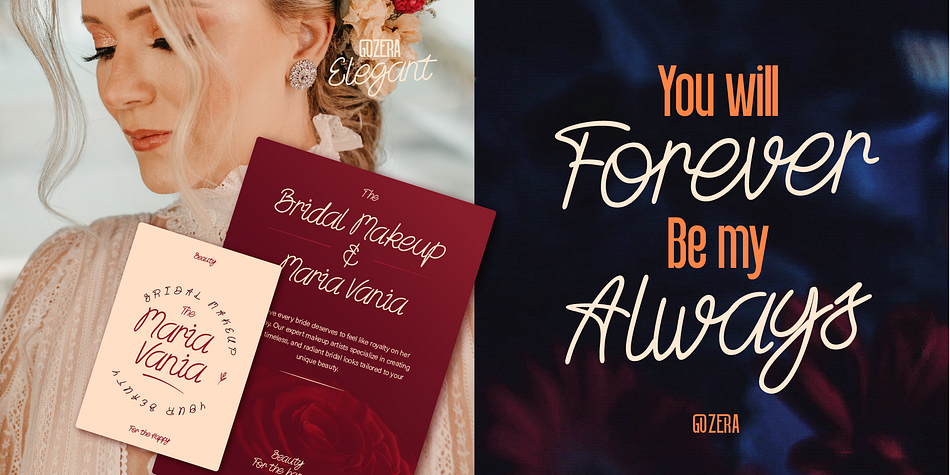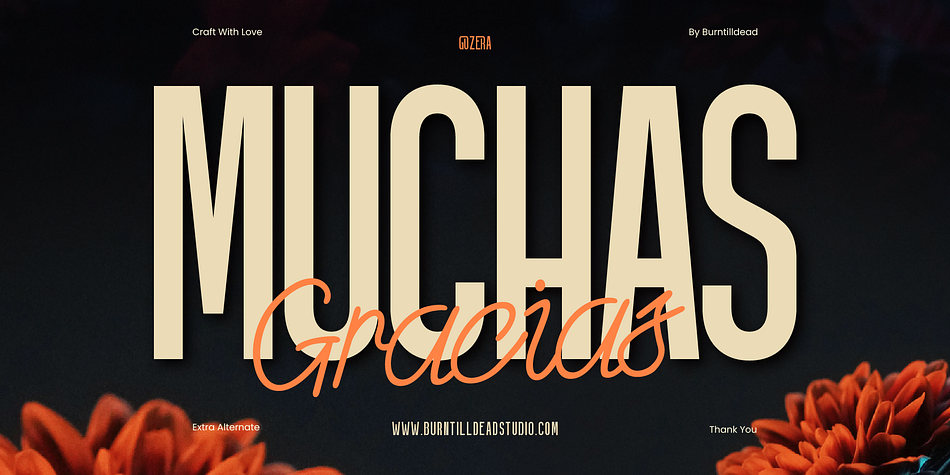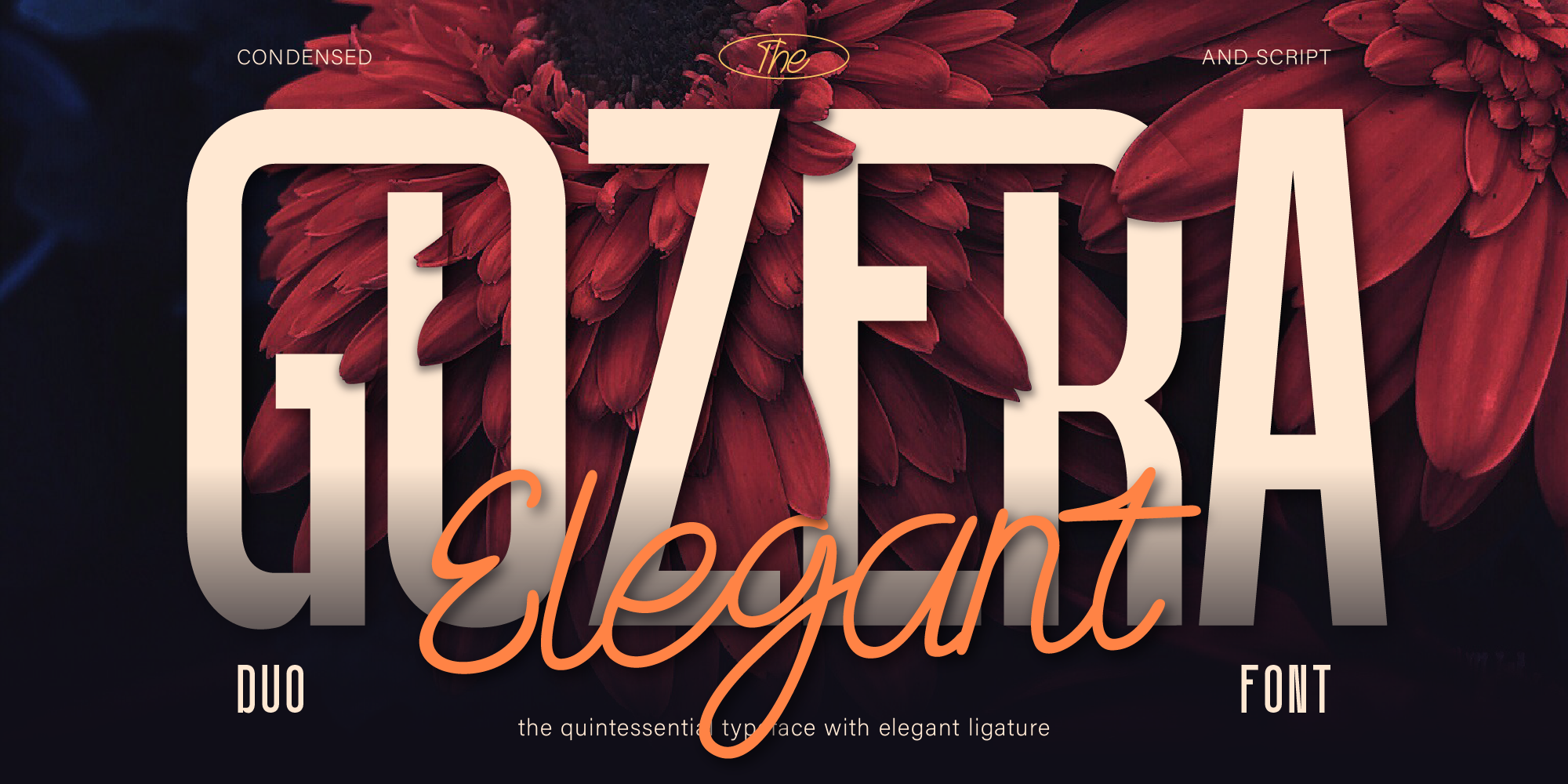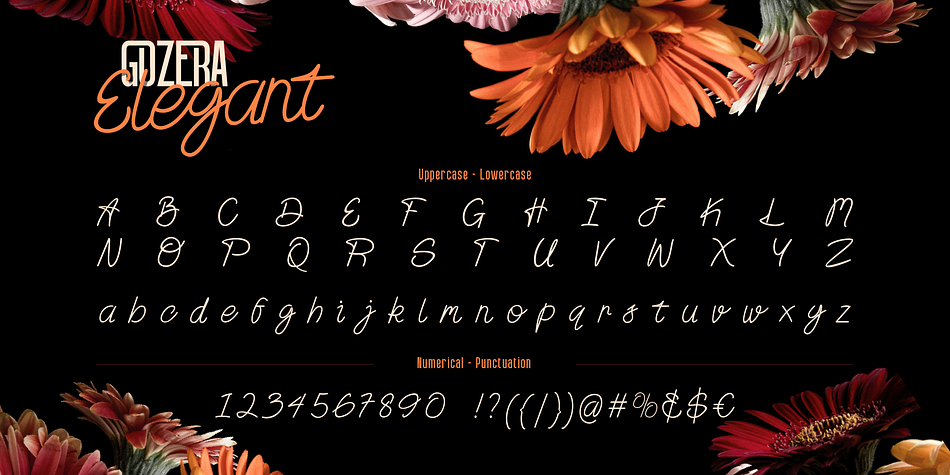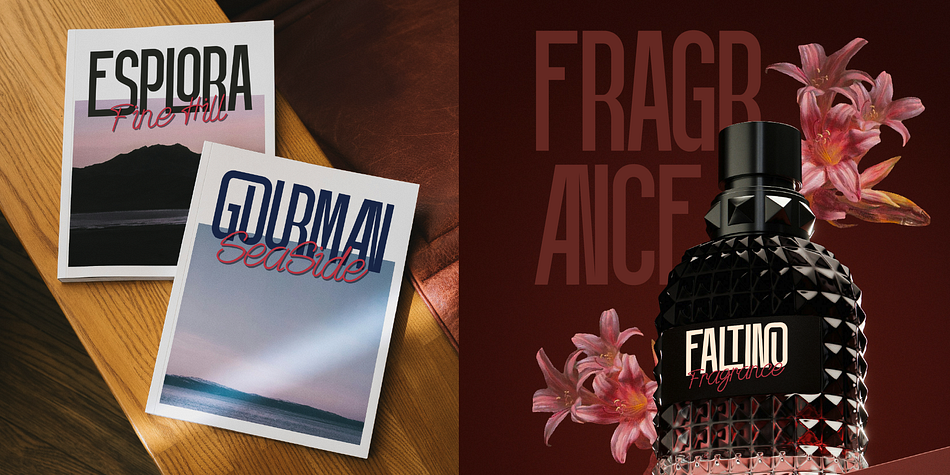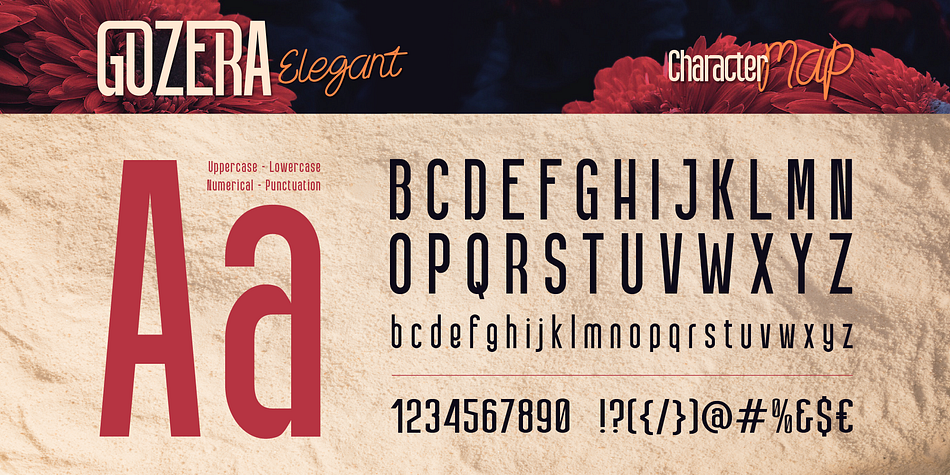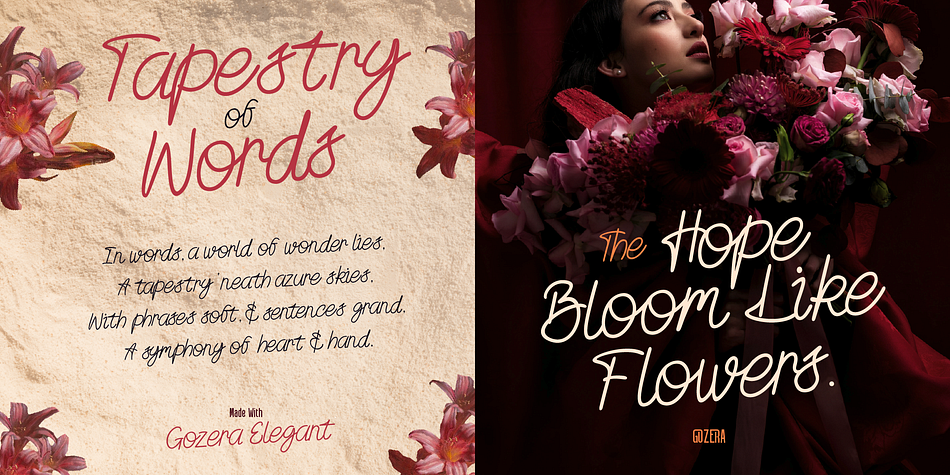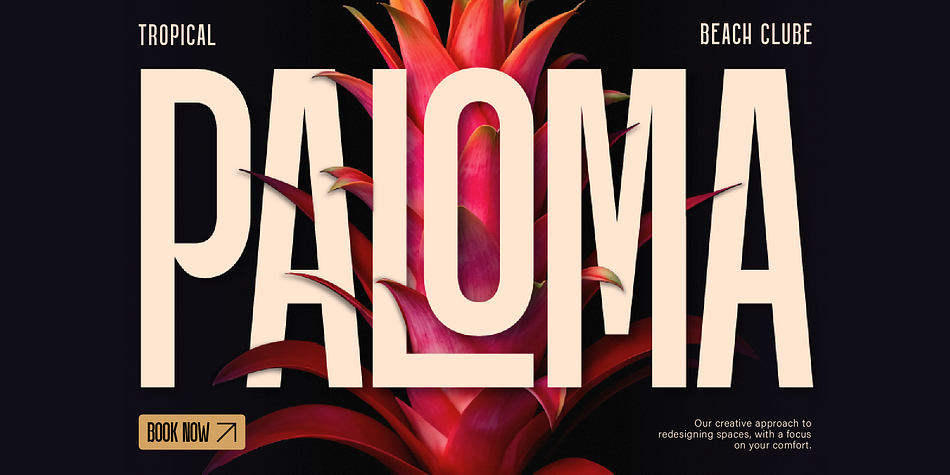
Gozera
Designed by Eric Kurniawan, Gozera is a sans serif font family. This typeface has two styles and was published by Burntilldead.
Introducing Gozera, a stunning font duo that combines two contrasting yet perfectly balanced styles: a modern condensed sans serif and an elegant handwritten script. This unique pairing gives you the freedom to create bold, dynamic designs with a sophisticated touch.
The sans serif is sleek, tall, and confident—ideal for headlines, logos, or any design that demands attention with a clean and professional look. Its geometric structure and minimal details make it perfect for modern branding, editorial layouts, and striking product packaging.
In contrast, the script font brings softness and warmth through graceful curves and fluid strokes. It mimics the charm of a personal handwritten note, making it ideal for taglines, quotes, wedding designs, and any creative project that calls for an emotional, human touch.
Together, the two styles in Gozera offer a harmonious visual contrast. The result is a design that feels both strong and graceful—perfect for elevating your brand while still remaining approachable and stylish.
With the versatility of a duo font, Gozera simplifies your creative process. You can mix and match the two styles effortlessly to create layered typography that stands out and tells a story. Whether you’re working on digital media, print layouts, or brand identity, Gozera will bring clarity, character, and class to your design.